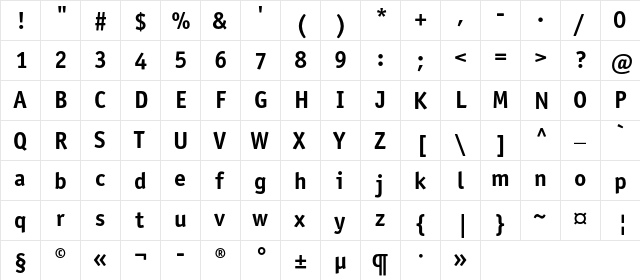
OfficinaSansC Bold Font Preview
OfficinaSansC Bold
Design Context for OfficinaSansC Typeface
OfficinaSansC is a composed and adaptable typeface that performs quietly and consistently across a wide range of design contexts. The heavy weight commands attention and anchors typographic hierarchies.
Pro Tip: Pair OfficinaSansC with a font of contrasting weight or personality to build a more expressive typographic hierarchy.